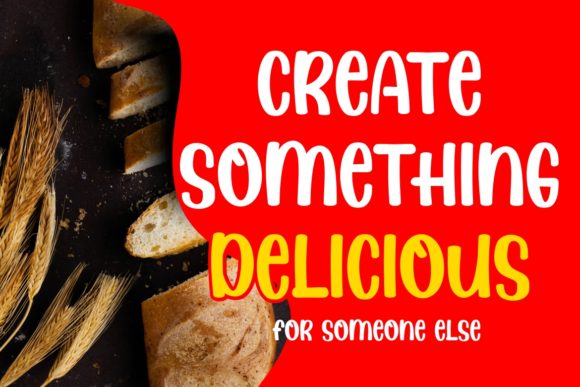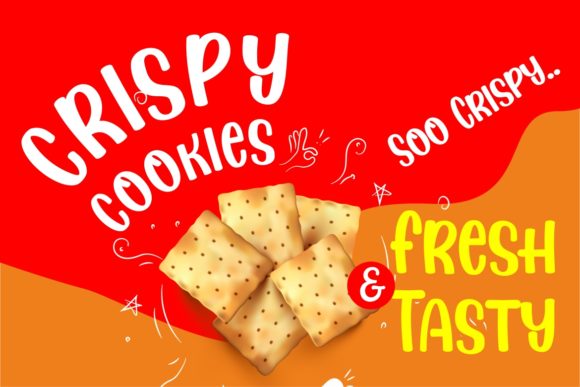
Sweet Butter Font
db-ku.com - Script & Handwritten -- Sweet Butter is a cute and sweet display font with an incredibly friendly feel. Whether it’s for logo, print, moving images or anything else – Sweet Butter will look spectacular.